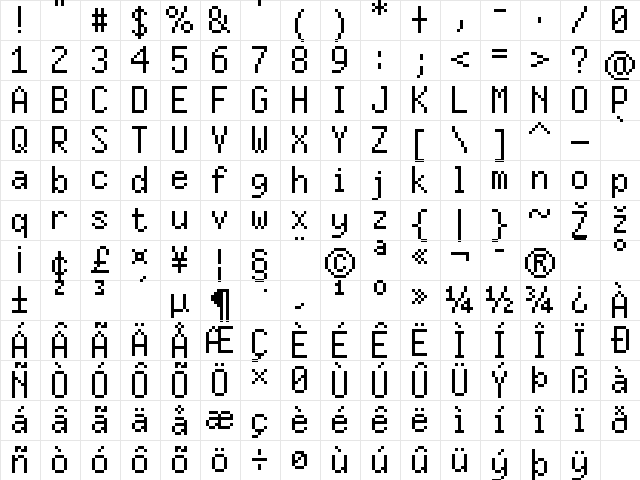
FFF Daylight Extended Regular
| Foundry | Fonts For Flash |
| Designer | Fonts For Flash |
Design Context for FFF Daylight Extended Typeface
FFF Daylight Extended offers clean, dependable letterforms without strong stylistic allegiance, making it a practical choice for designers who need flexibility. Its slender proportions lend an understated elegance to any composition.